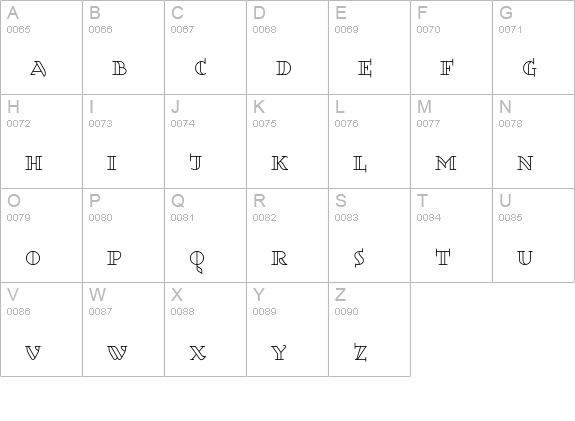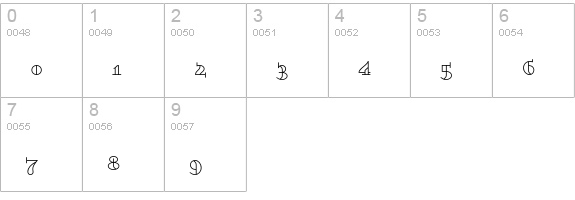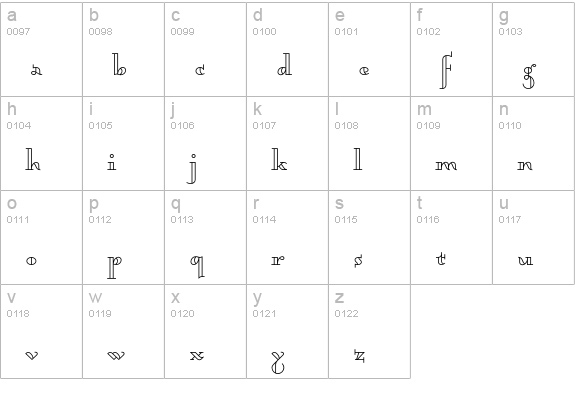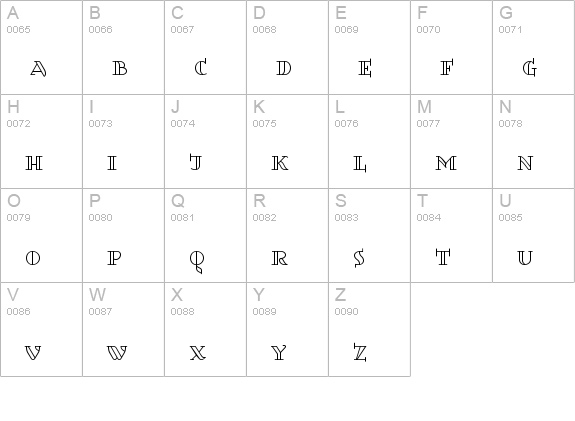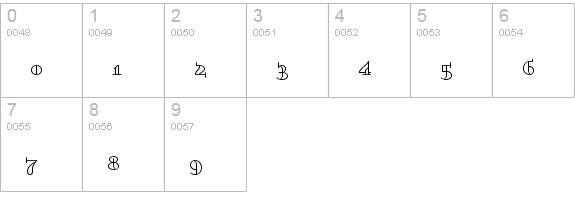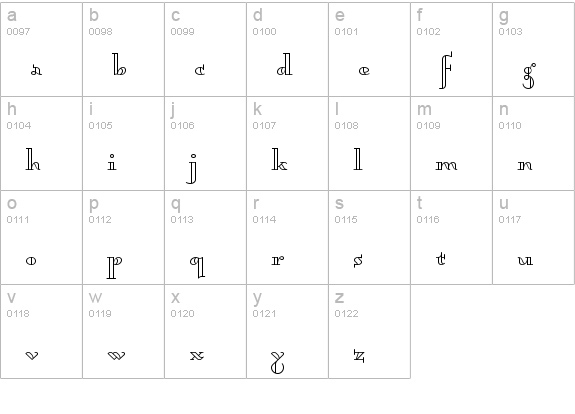
Dagerotypos Font Details
Introducing Dagerotypos, a stunning font that effortlessly captures attention with its unique and eye-catching design. This font is a true masterpiece, carefully crafted to add a touch of elegance and sophistication to any project. Dagerotypos exhibits a perfect balance between modernity and timeless beauty, making it suitable for a wide range of creative endeavors. Its sleek and clean lines exude professionalism, making it an excellent choice for branding, logo design, advertisements, and much more. What sets Dagerotypos apart is not only its exceptional aesthetics but also its versatility. With a wide range of weights and styles available, you have the freedom to experiment and create a truly customized look for your designs. Whether it's a bold headline or subtle body text, Dagerotypos adapts effortlessly to any typographical need. And the best part? Dagerotypos is available for free! You can easily download this remarkable font at FontsMarket.com, a reliable source for high-quality fonts. Embrace the freedom of creativity without any cost, as Dagerotypos allows you to enhance your designs without breaking the bank. So why wait? Take advantage of this incredible opportunity and elevate your projects to new heights with Dagerotypos. With its seamless blend of elegance, versatility, and affordability, this font is truly a game-changer. Download Dagerotypos today and unleash your creativity like never before!